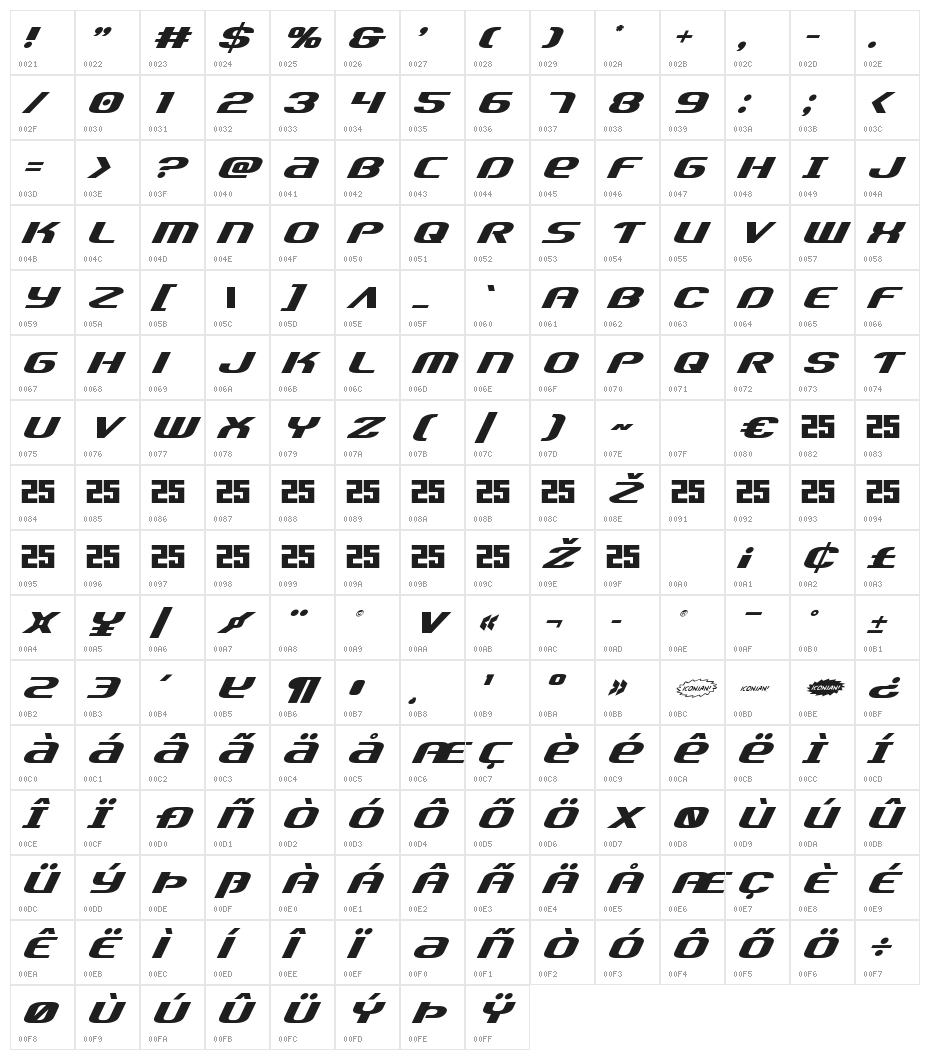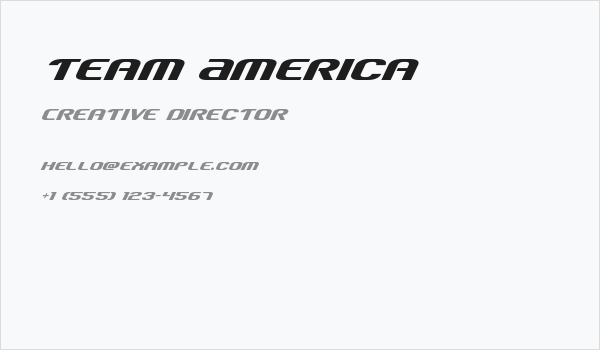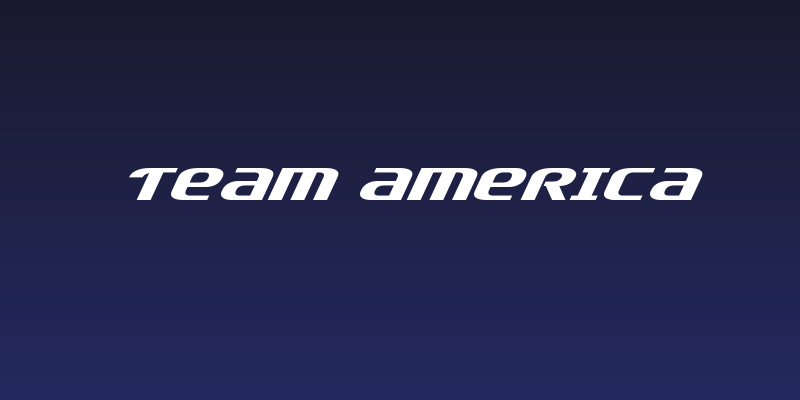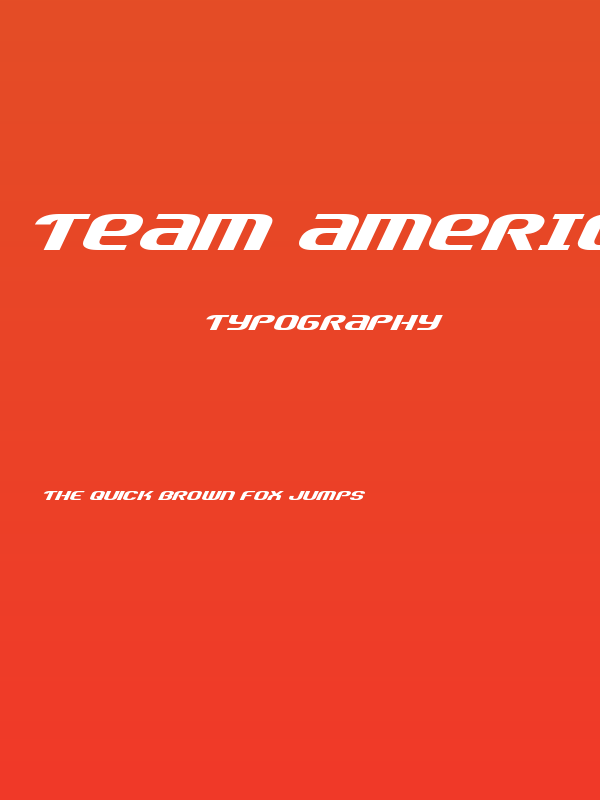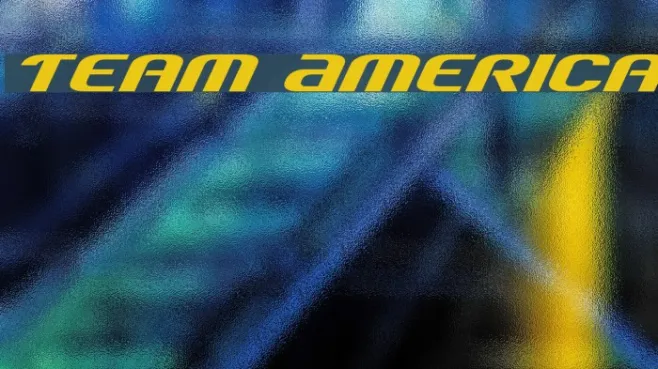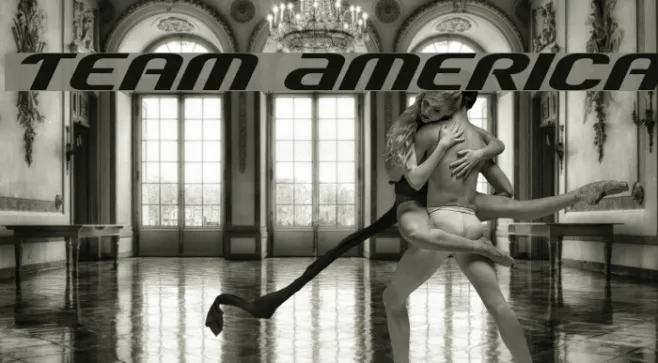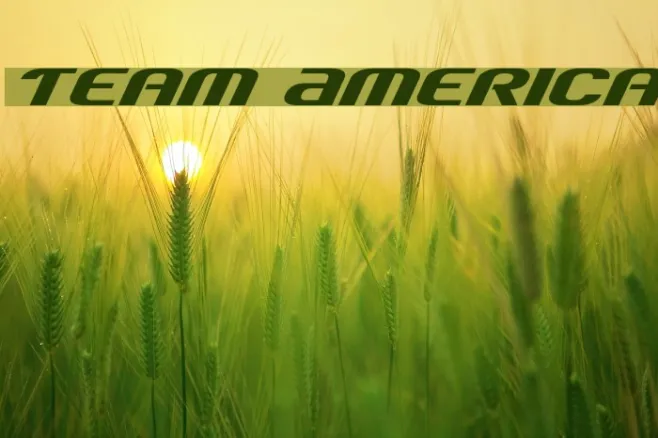
Team America Font
Team America Description
This font features a bold, italicized style with a modern and dynamic appearance. The characters are slightly slanted, giving a sense of movement and speed, which is further emphasized by the angular cuts and streamlined shapes. The uppercase and lowercase letters maintain a consistent style, with a uniform stroke width that adds to the boldness of the design. The numerals and special characters are designed to match the overall aesthetic, ensuring a cohesive look across all text. This font is ideal for projects that require a strong, impactful presence.
| Proposed Projects | Ideal for sports branding, automotive designs, dynamic posters, and modern advertising campaigns. |